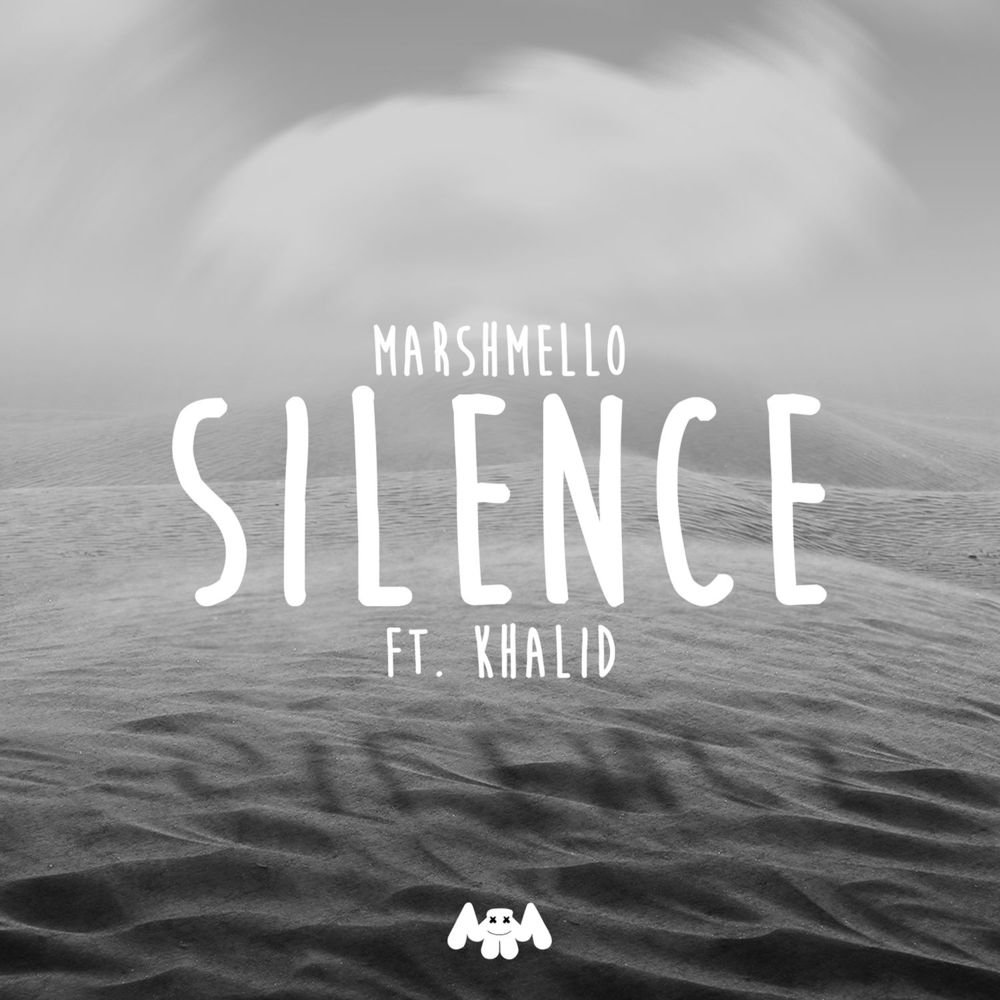
Silence (Marshmello) Font
ElectronicSilence (Marshmello) is a popular electronic dance music song by American DJ and music producer Marshmello, featuring vocals from British singer Khalid. The song was released in 2017 and quickly gained popularity for its catchy melody and upbeat rhythm.
The cover artwork above showcases a handwritten font resembling Moon Flower Bold by Denise Bentulan, which is available for free download in the Fonts Used Section.